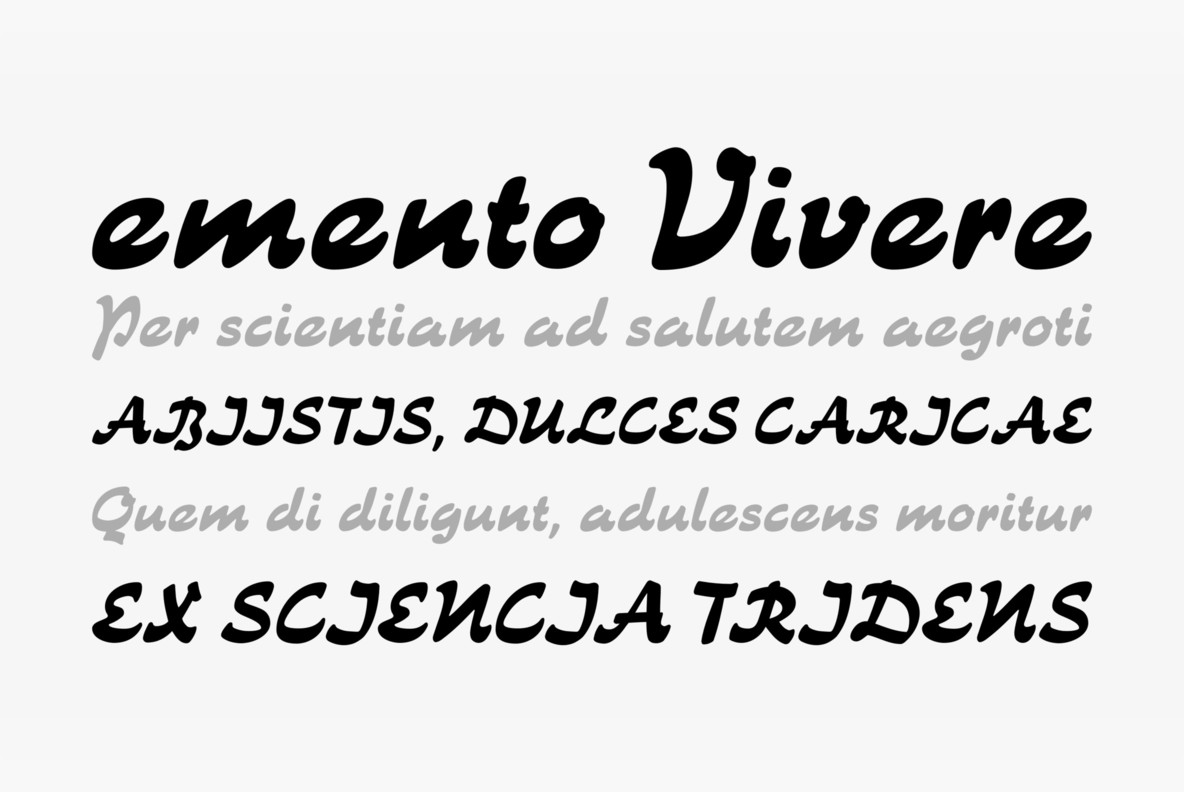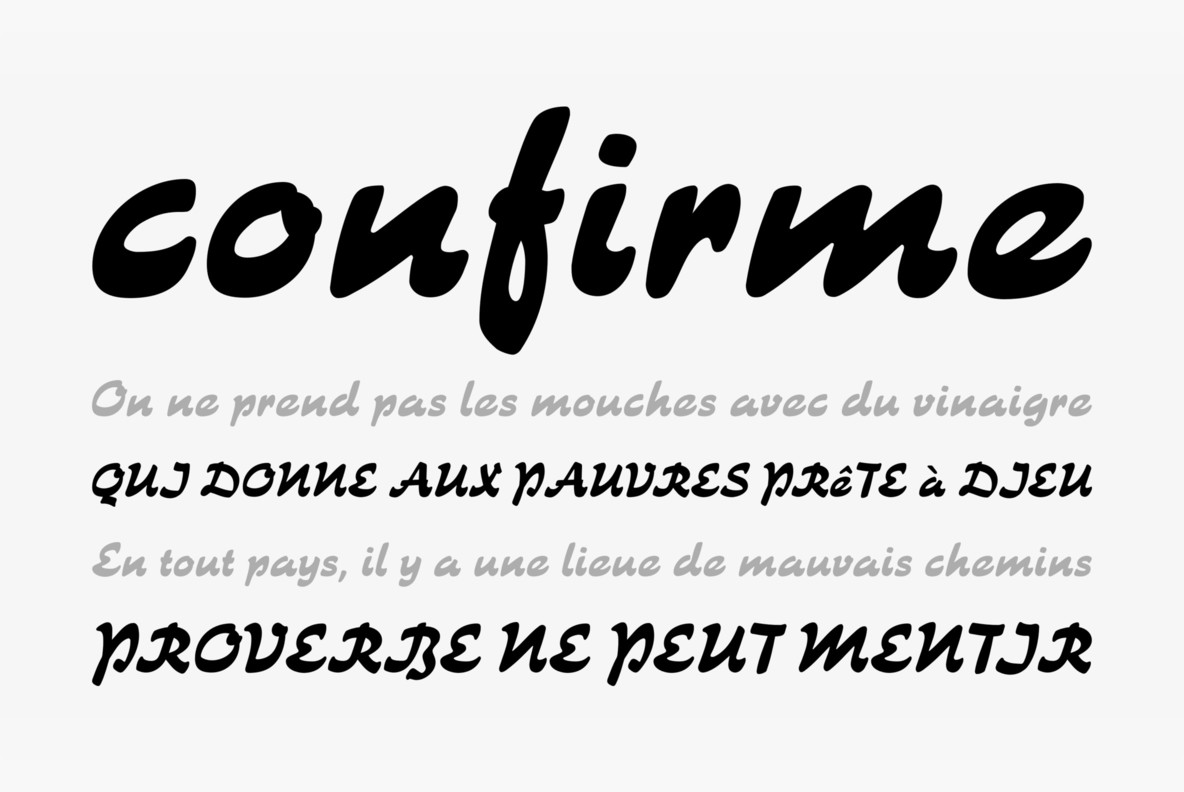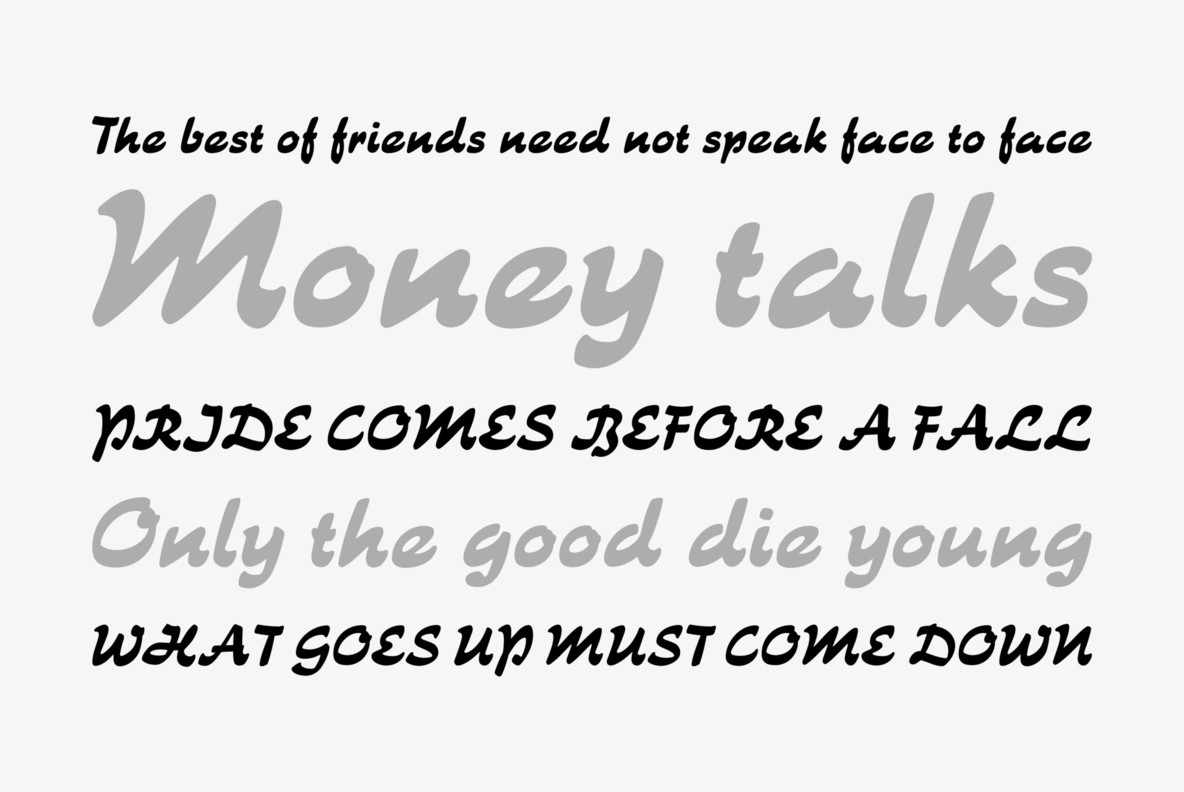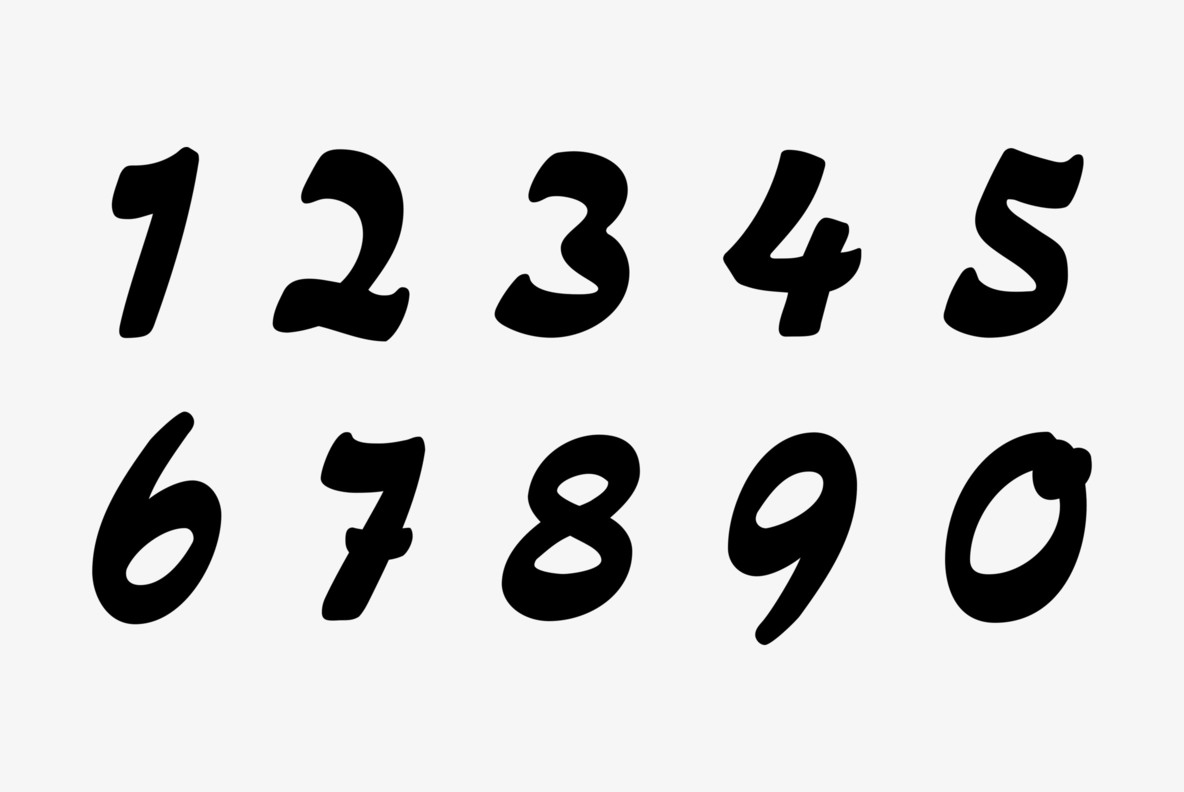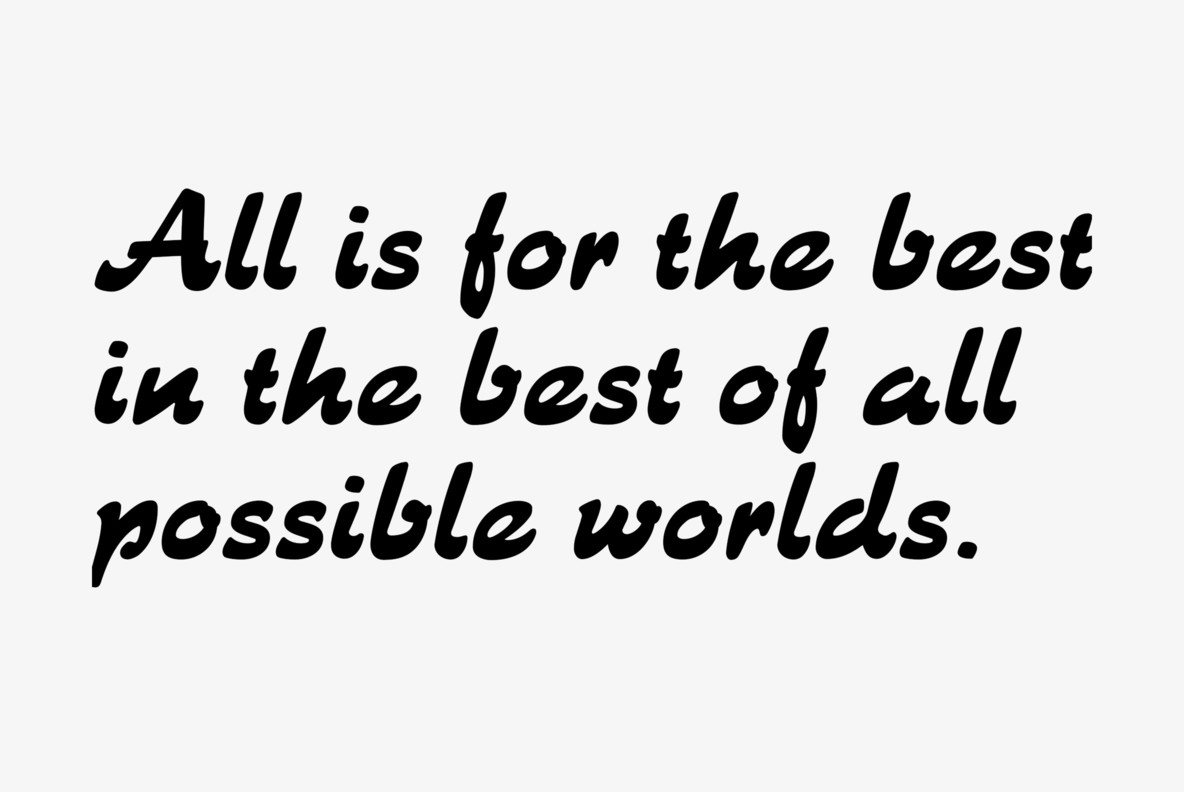
Neue Kurier
Typoart’s popular script font in a new, completely remastered version.
Typesetter from the composing stick via Linotype setting machines to the Mac. Jobs in various Thuringian printeries. Barred further education by Communist authorities due to political reasons. Imprisoned in East Germany. Since 1988 in the state of Baden-Wuerttemberg, former West Germany. Jobs in several newspa...